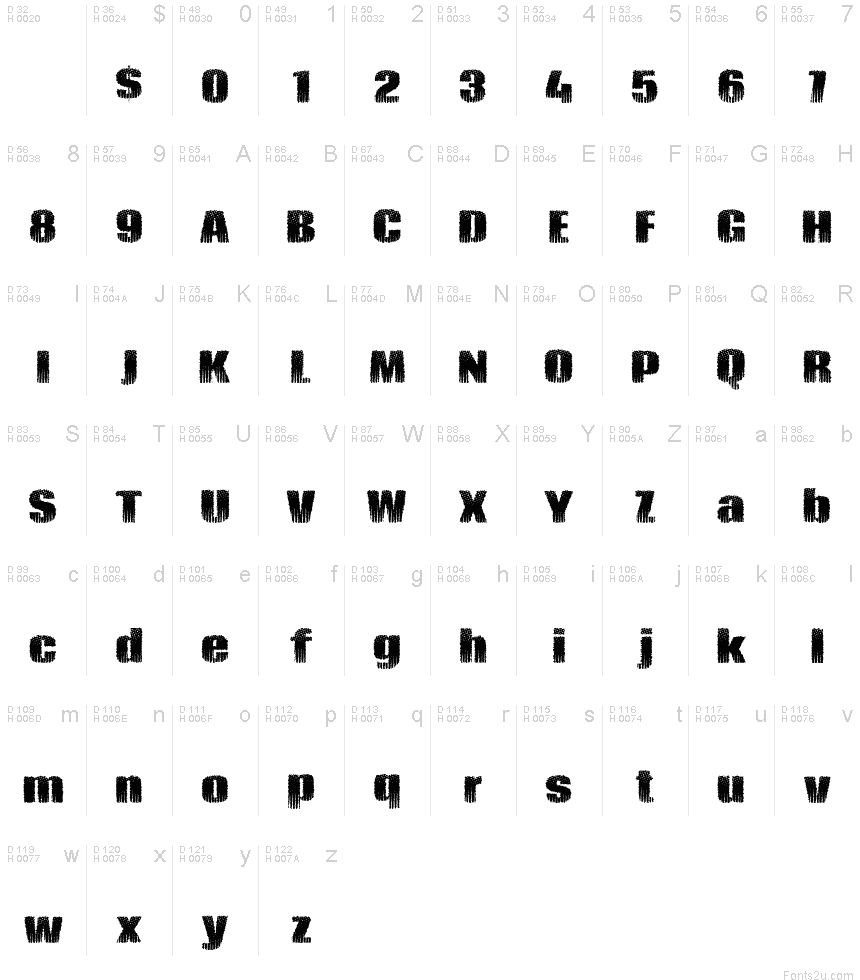
Pirate Zombie by Xerographer Fonts is a free eroded display font with massive, tightly packed capitals and a ragged lower edge. Dense speckling chews through the strokes, and long vertical scratches give every letter a shredded, ink-dragged finish.
Horror posters are its clearest home. The damaged surface suits punk album covers, Halloween graphics, and game titles, where the lettering can become part of the grime rather than a caption. Its blunt silhouette is especially convincing for a horror title card.